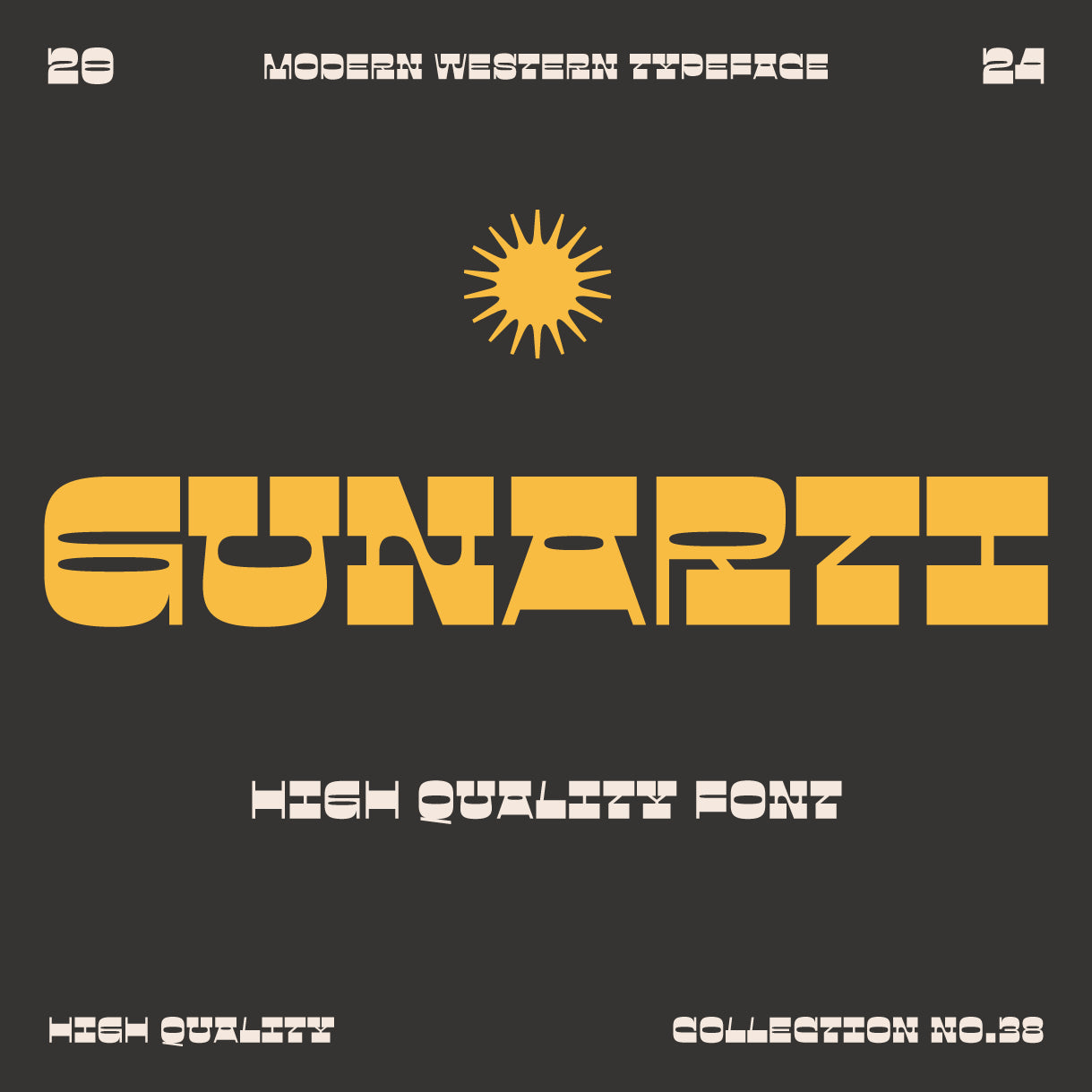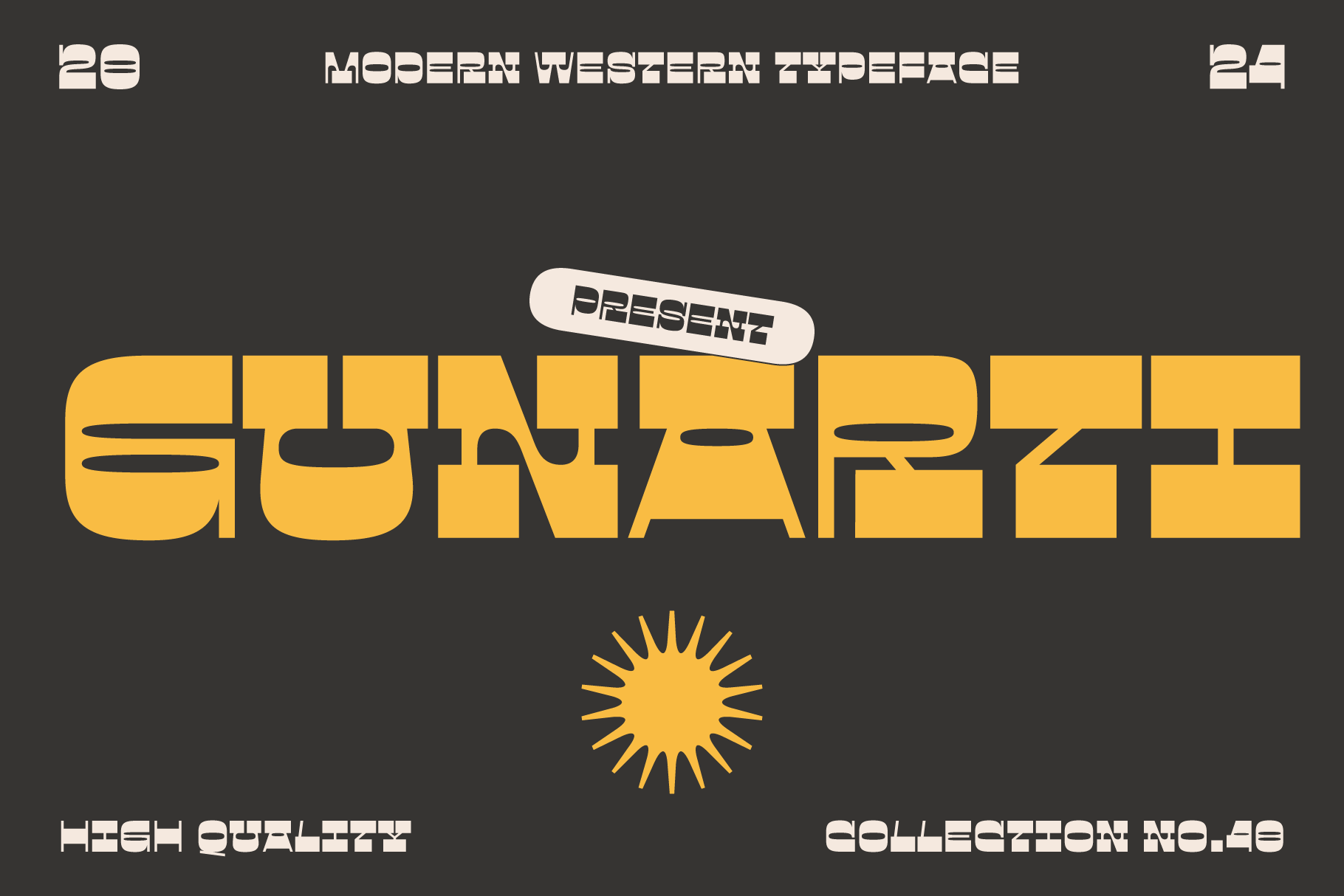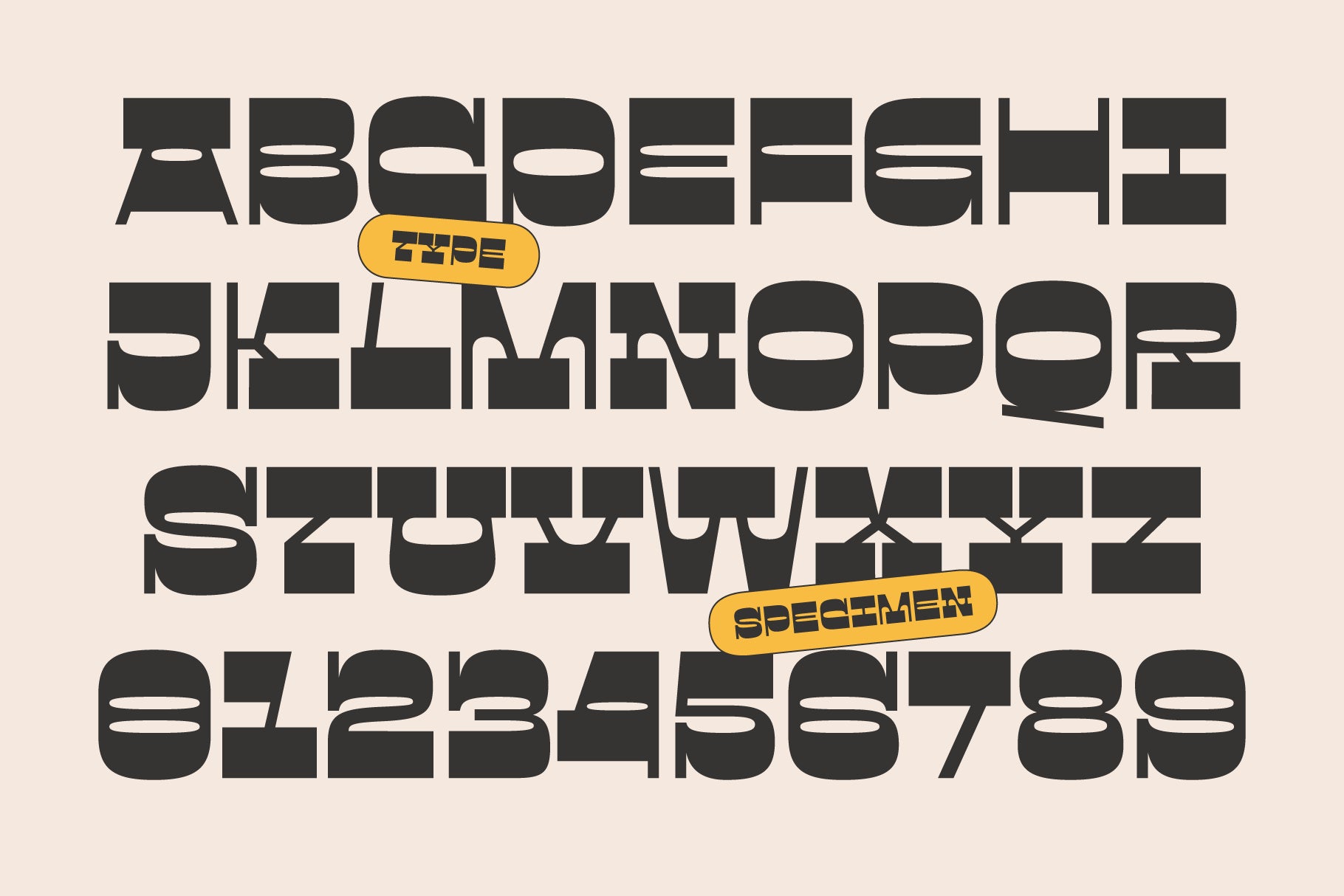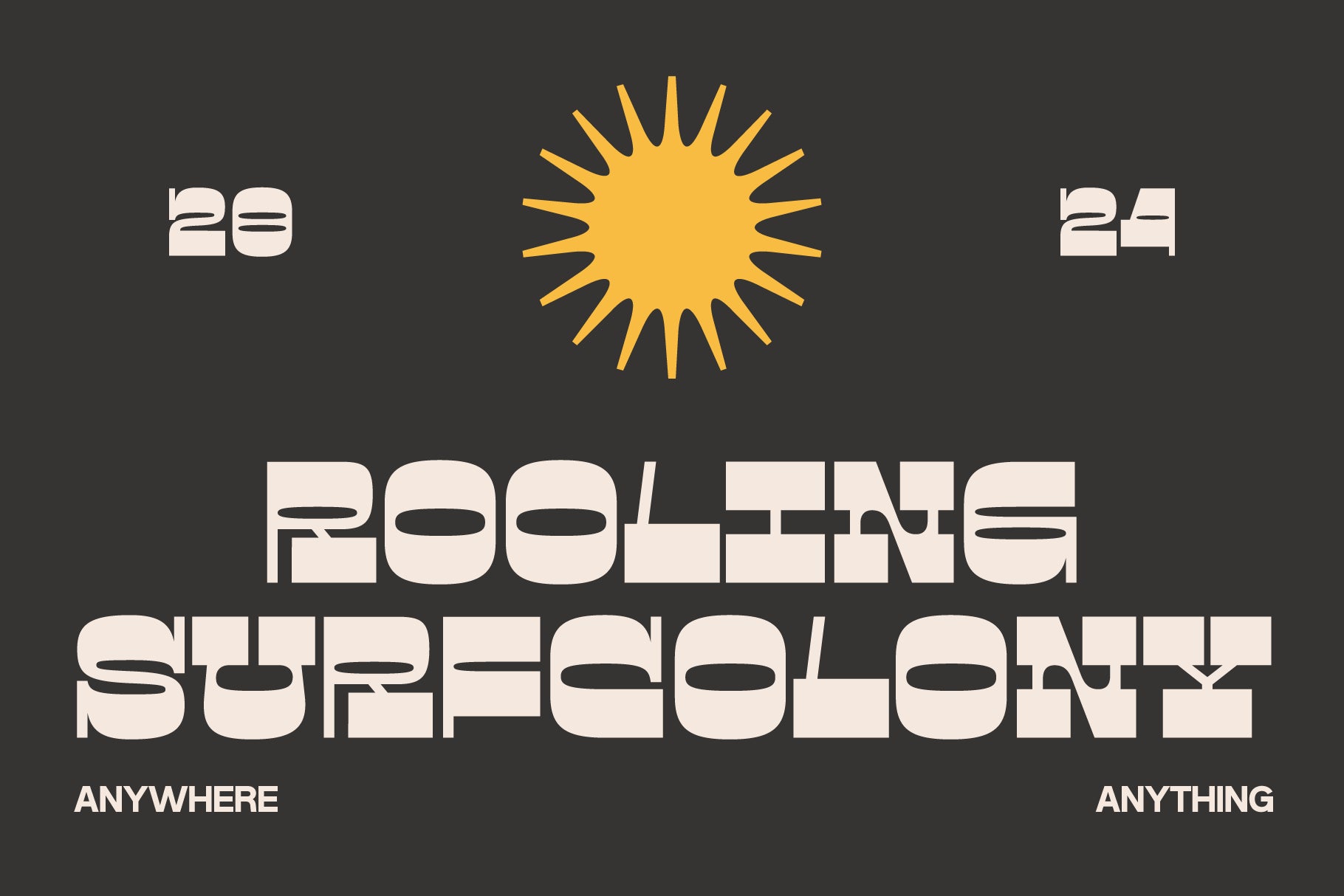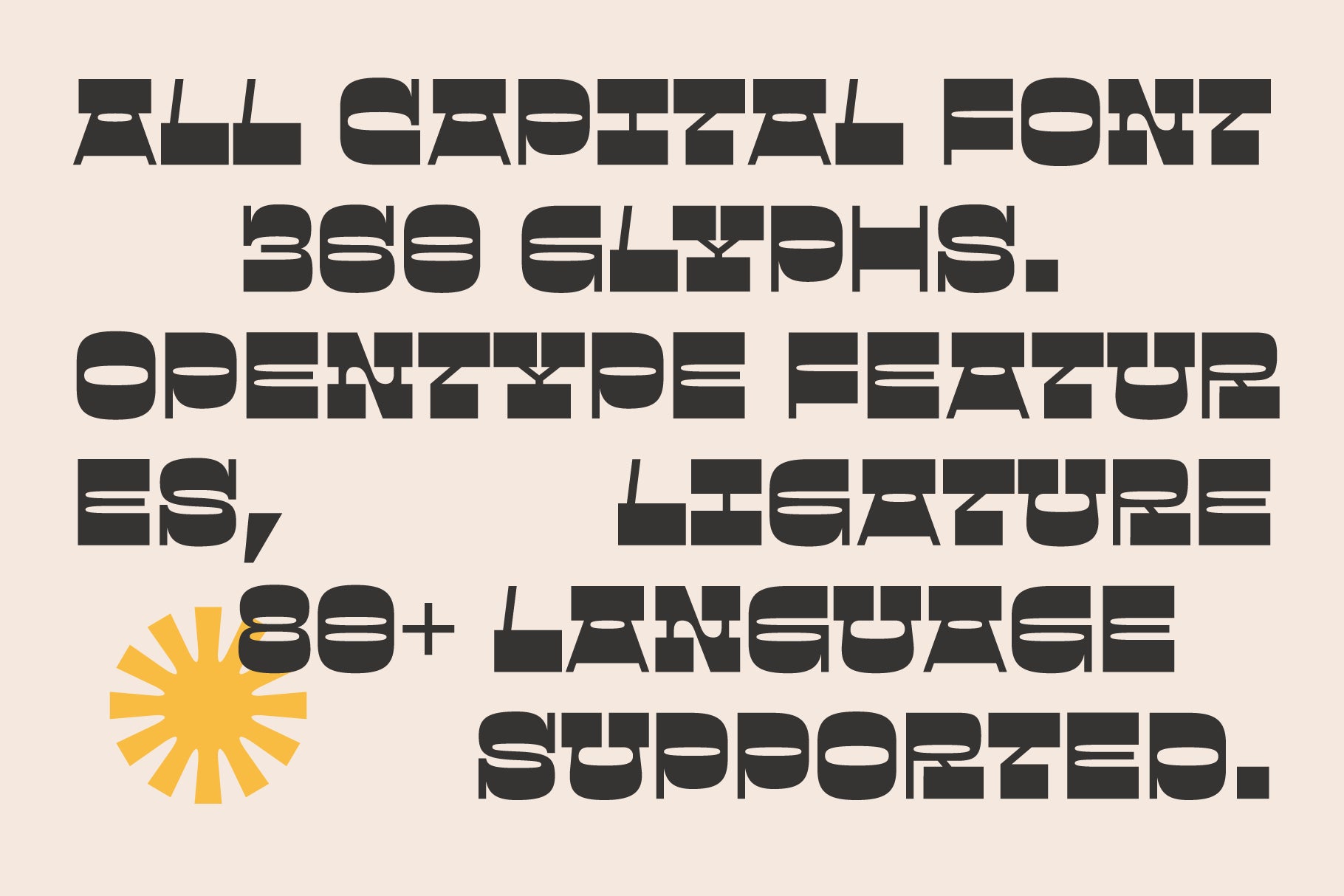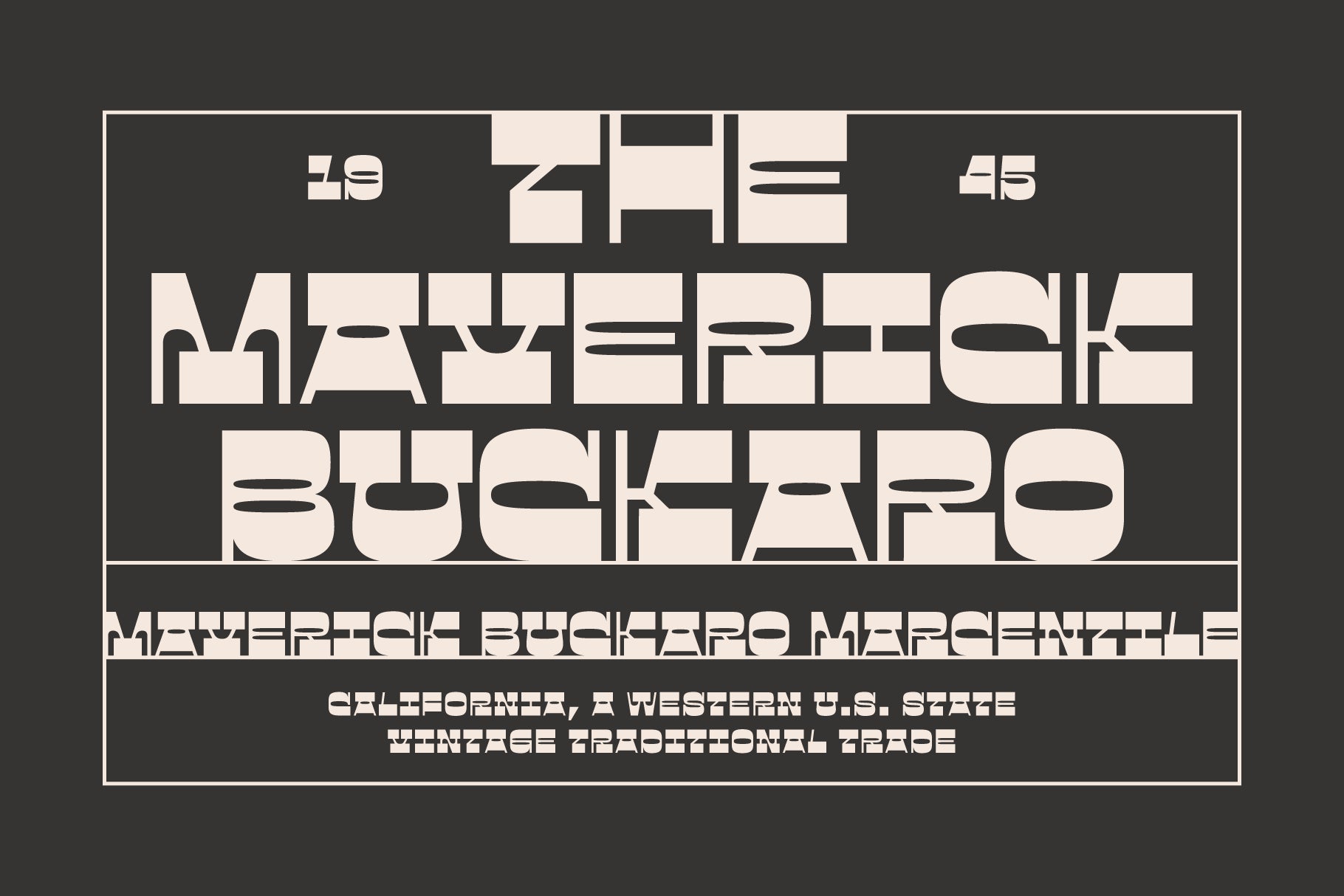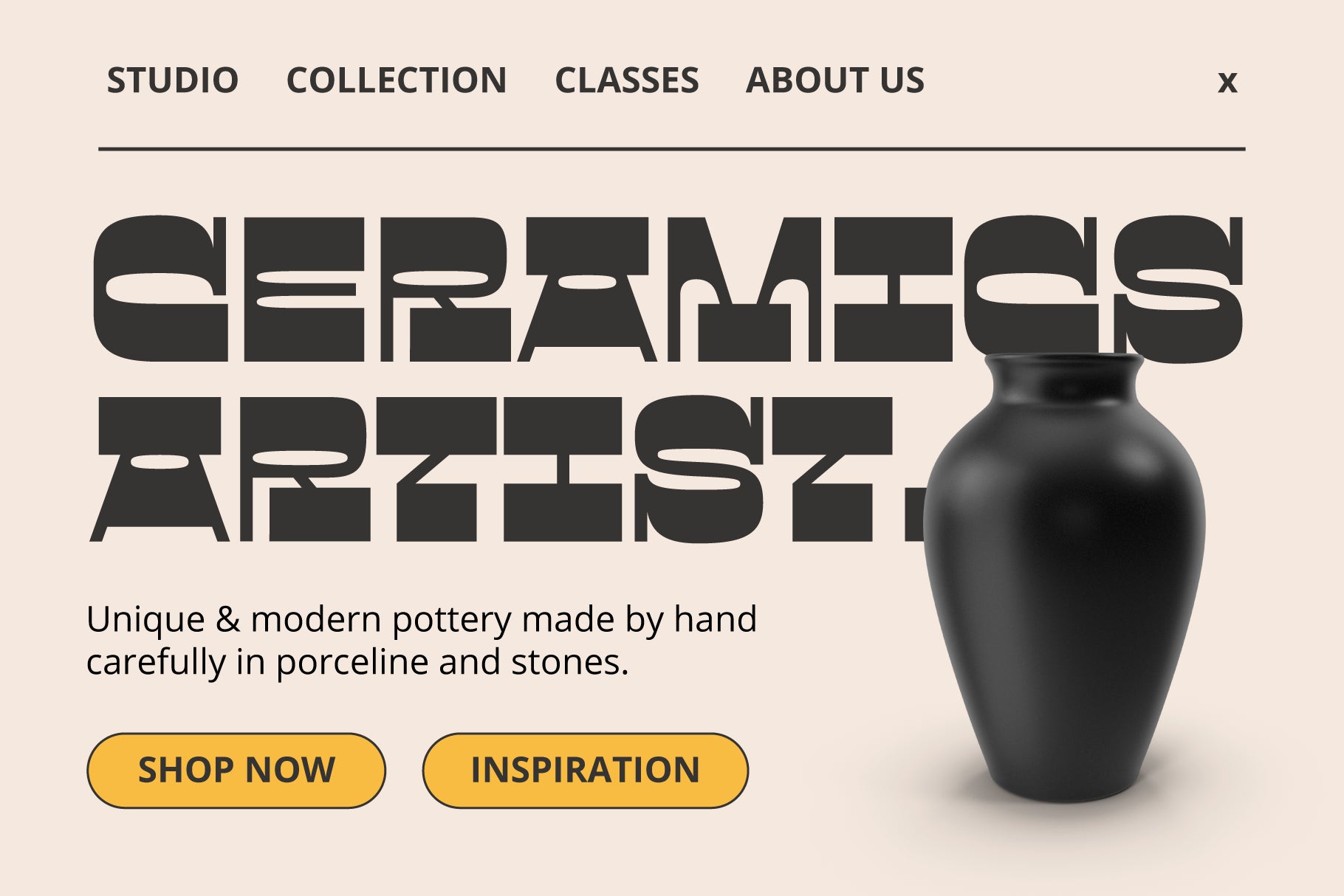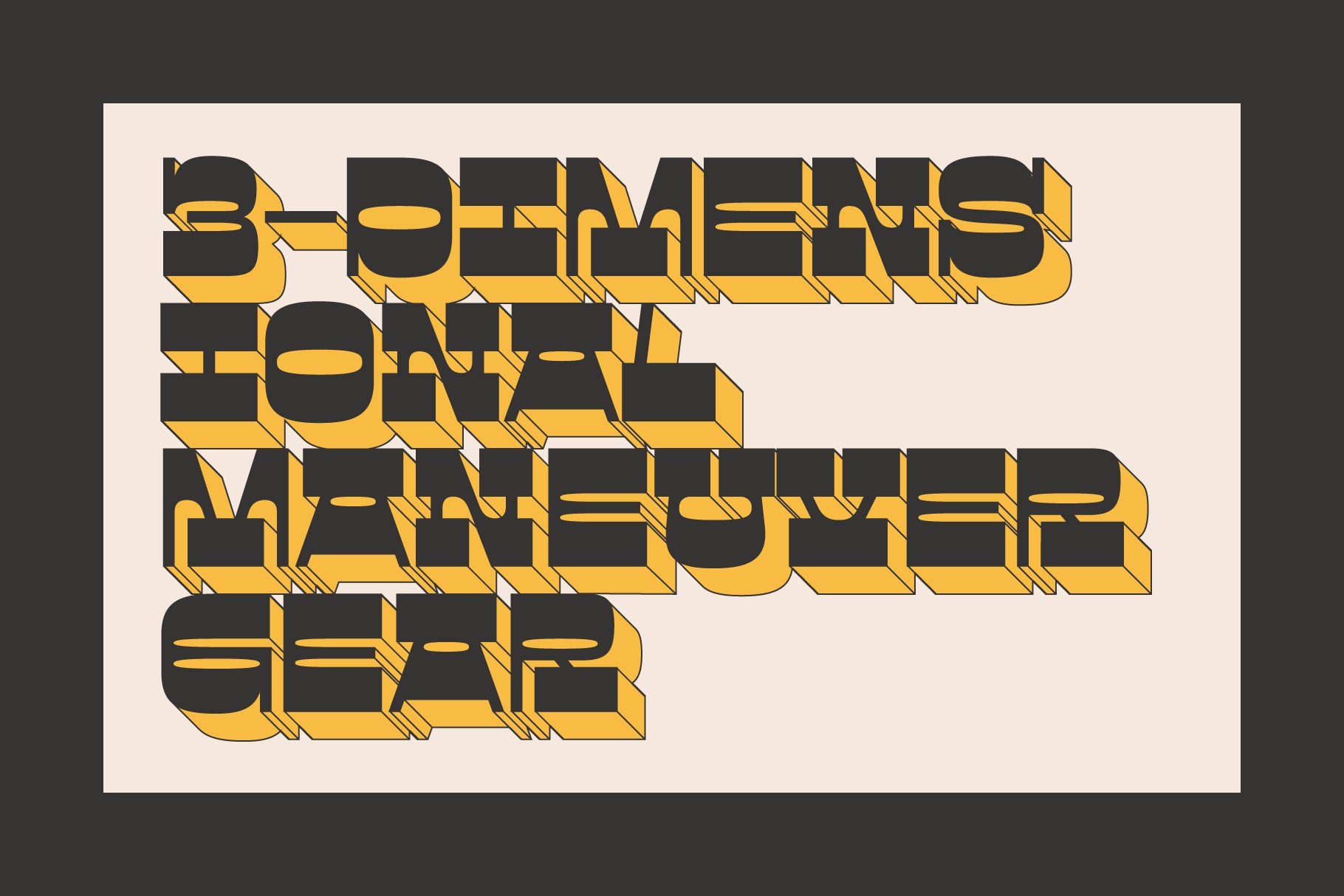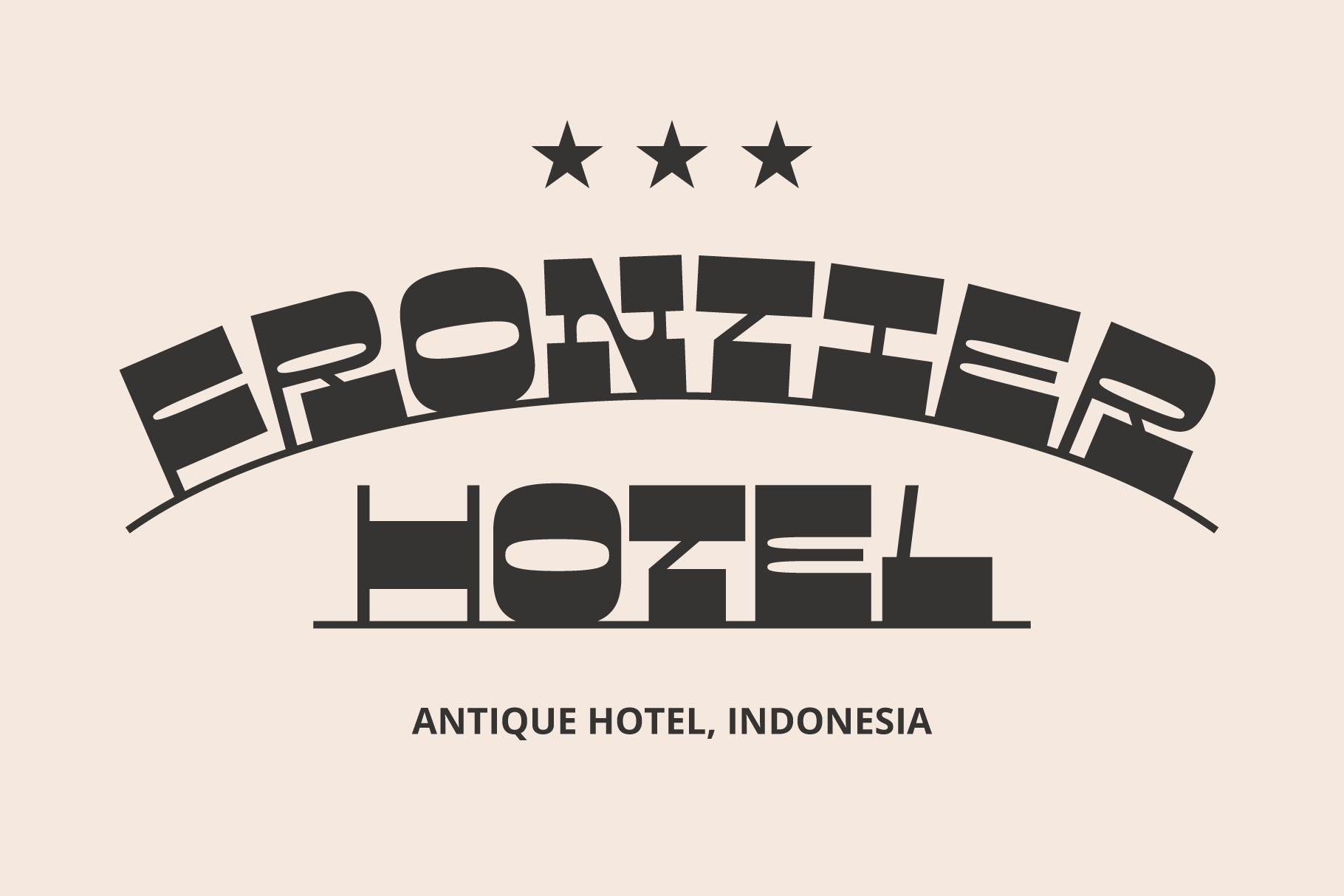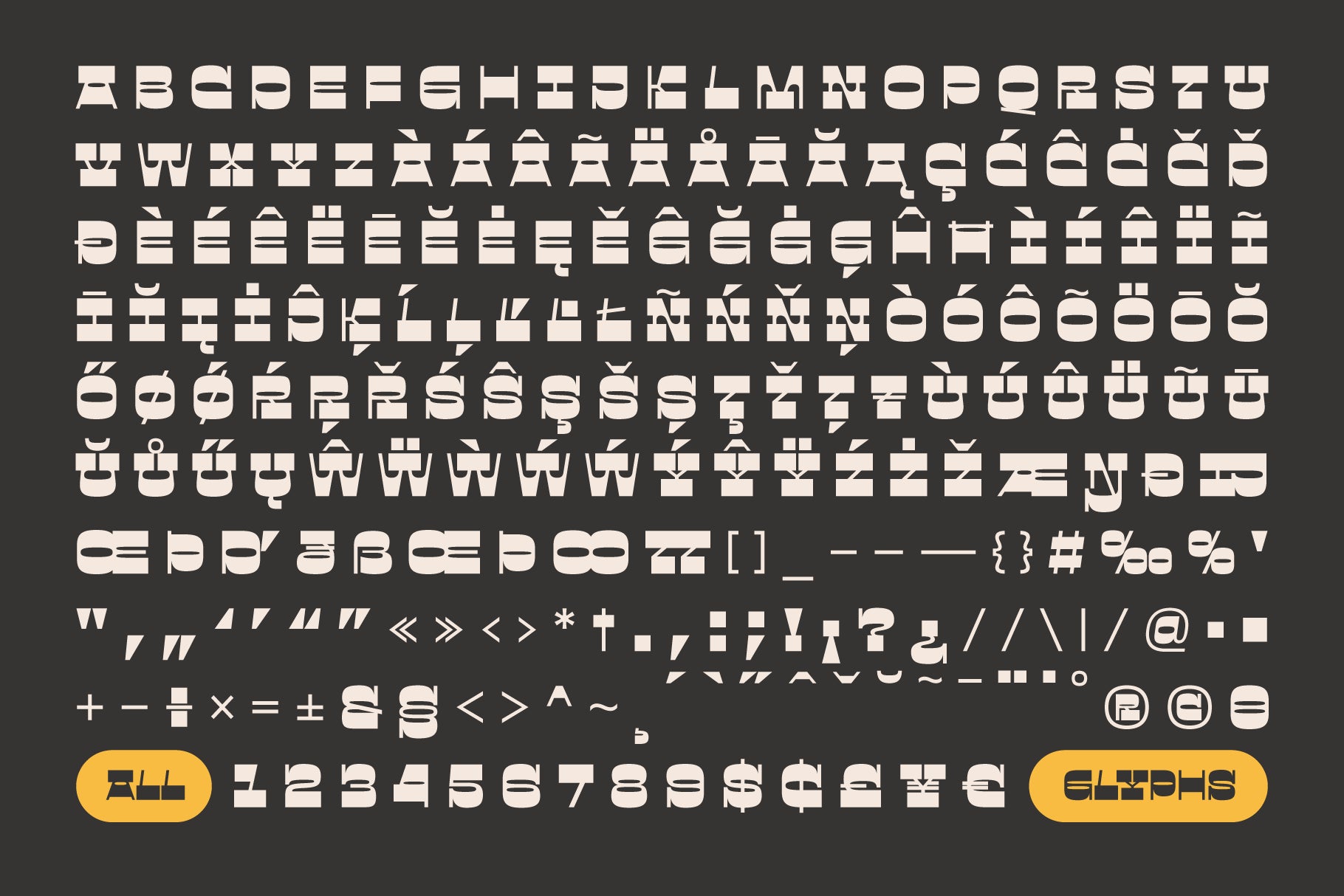
Gunarti Font
Gunarti is a bold Wide Western Font that blends reverse contrast and slab serif influences into a distinctive modern display typeface. Inspired by classic retro western lettering with subtly rounded interiors, Gunarti delivers a quirky personality that feels both playful and contemporary. Its dramatic contrast between thick and thin strokes makes it perfect for headlines, titles, posters, logos, branding, cartoons, stickers, merchandise, and eye-catching social media designs.
Created for impactful display typography, Gunarti features All Capital characters, numbers, punctuation, ligatures, OpenType features, and PUA encoded characters for effortless creative use. With an Extended Latin character set containing 360 glyphs and support for 85+ languages, Gunarti offers the versatility and multilingual compatibility needed to bring bold western-inspired character to a wide range of creative projects.
Gunarti Font is a bold wide Western typeface that combines reverse contrast and slab serif elements, featuring all capital characters, numbers, punctuation, ligatures, and PUA encoded characters. With an extended Latin character set of 360 glyphs and support for over 85 languages, it offers versatility for various creative projects.